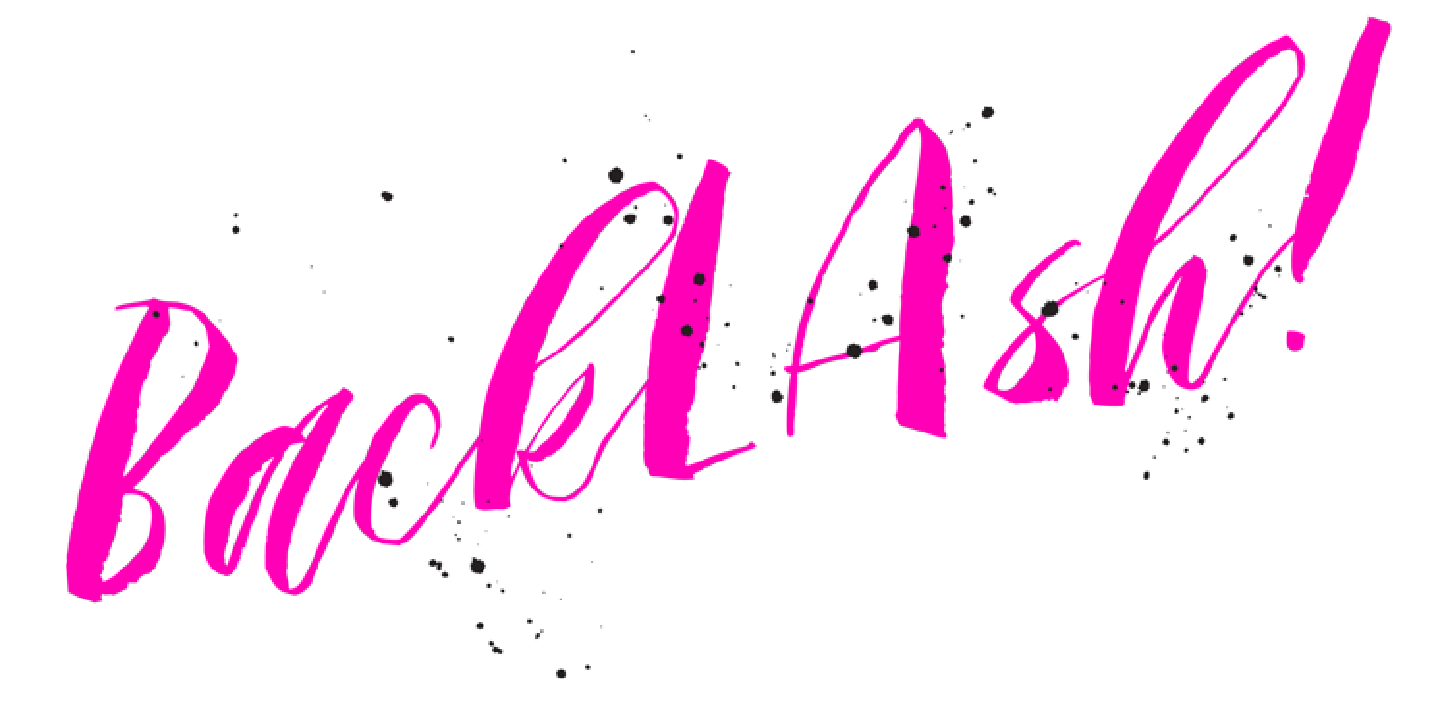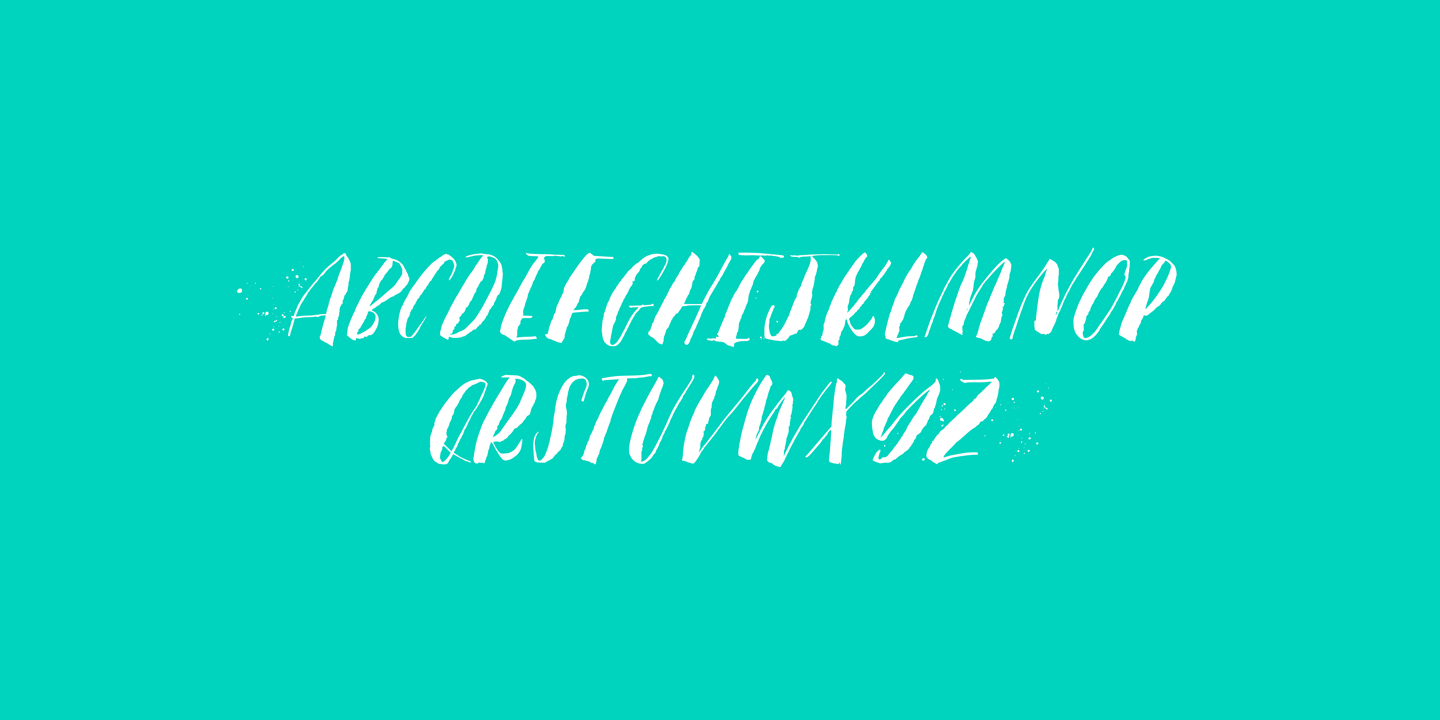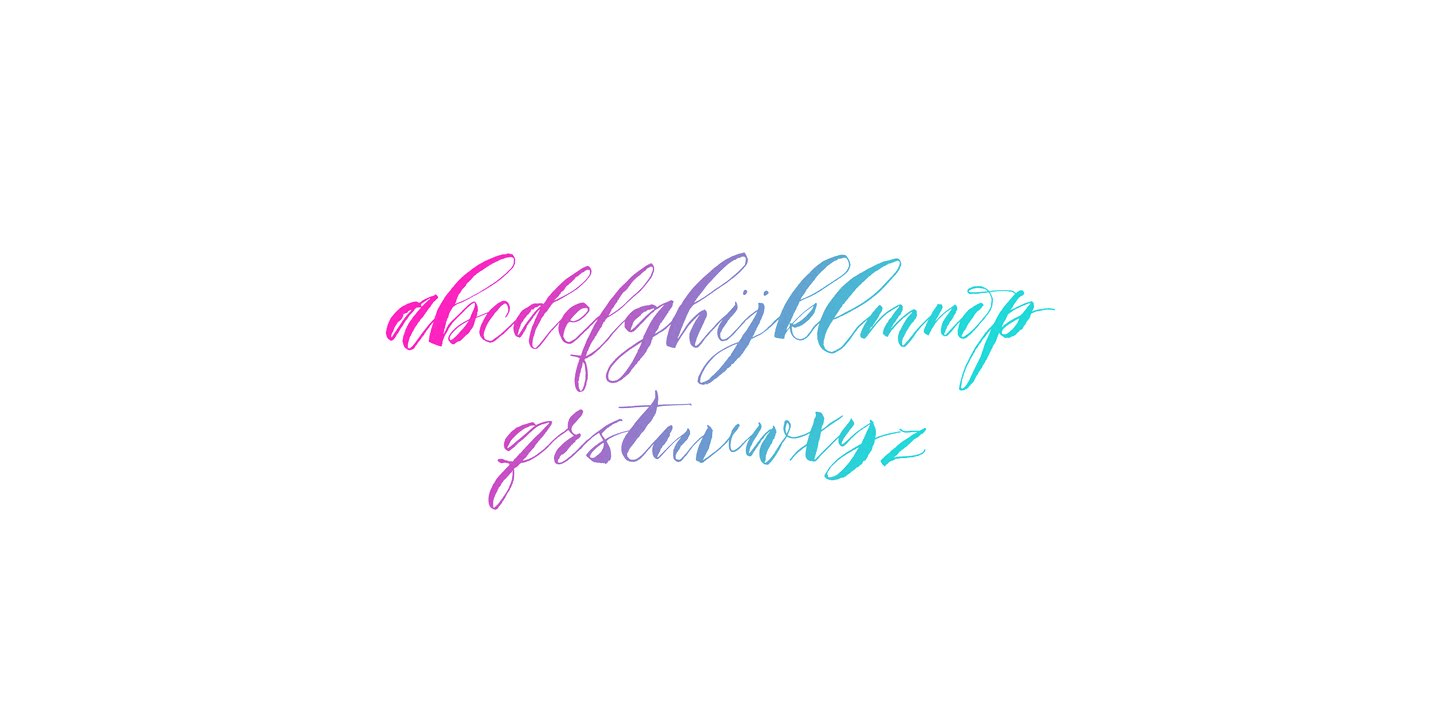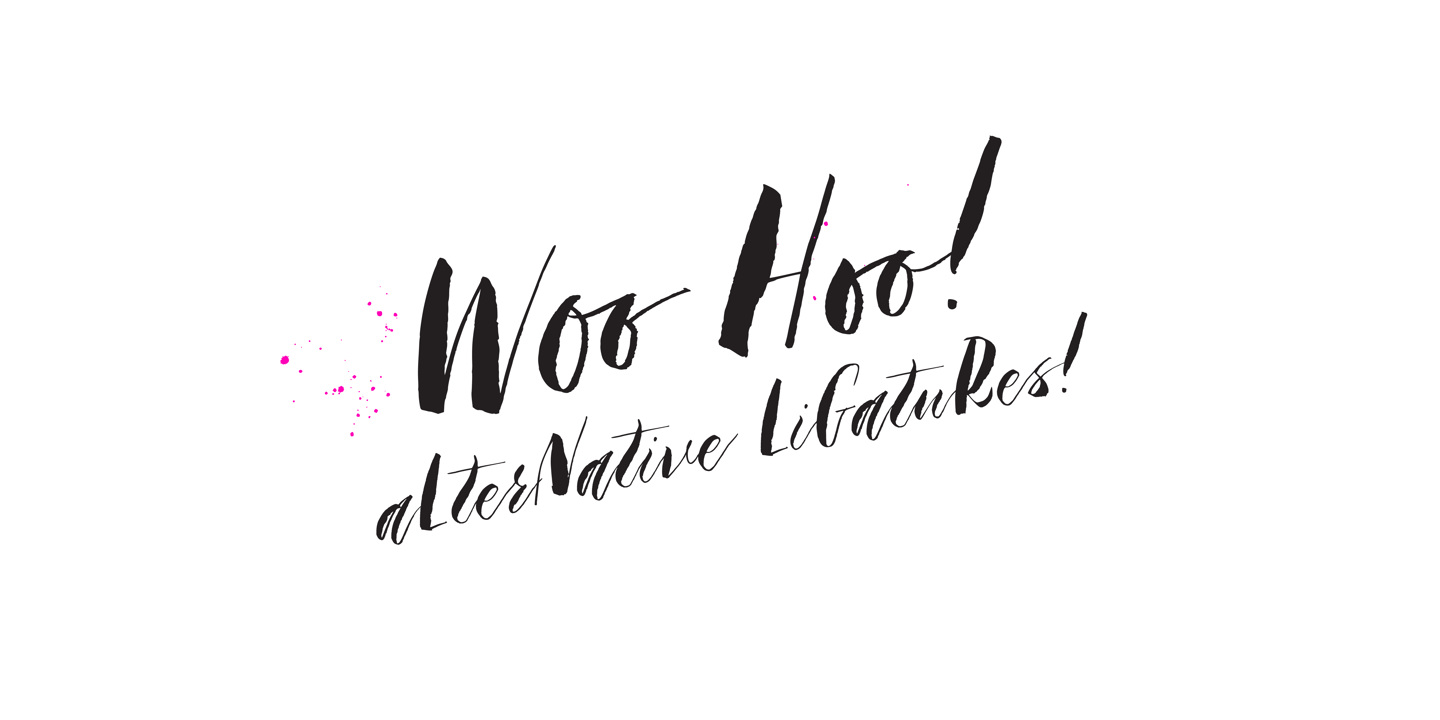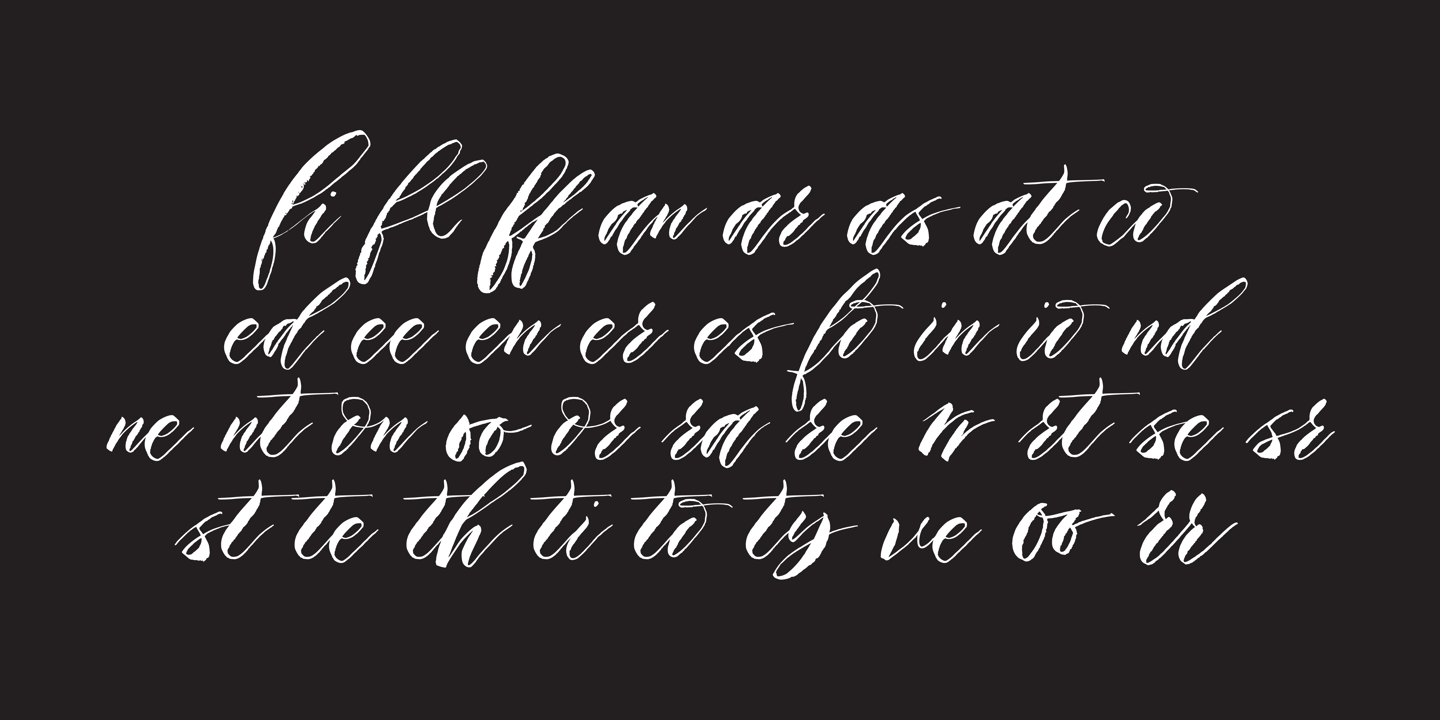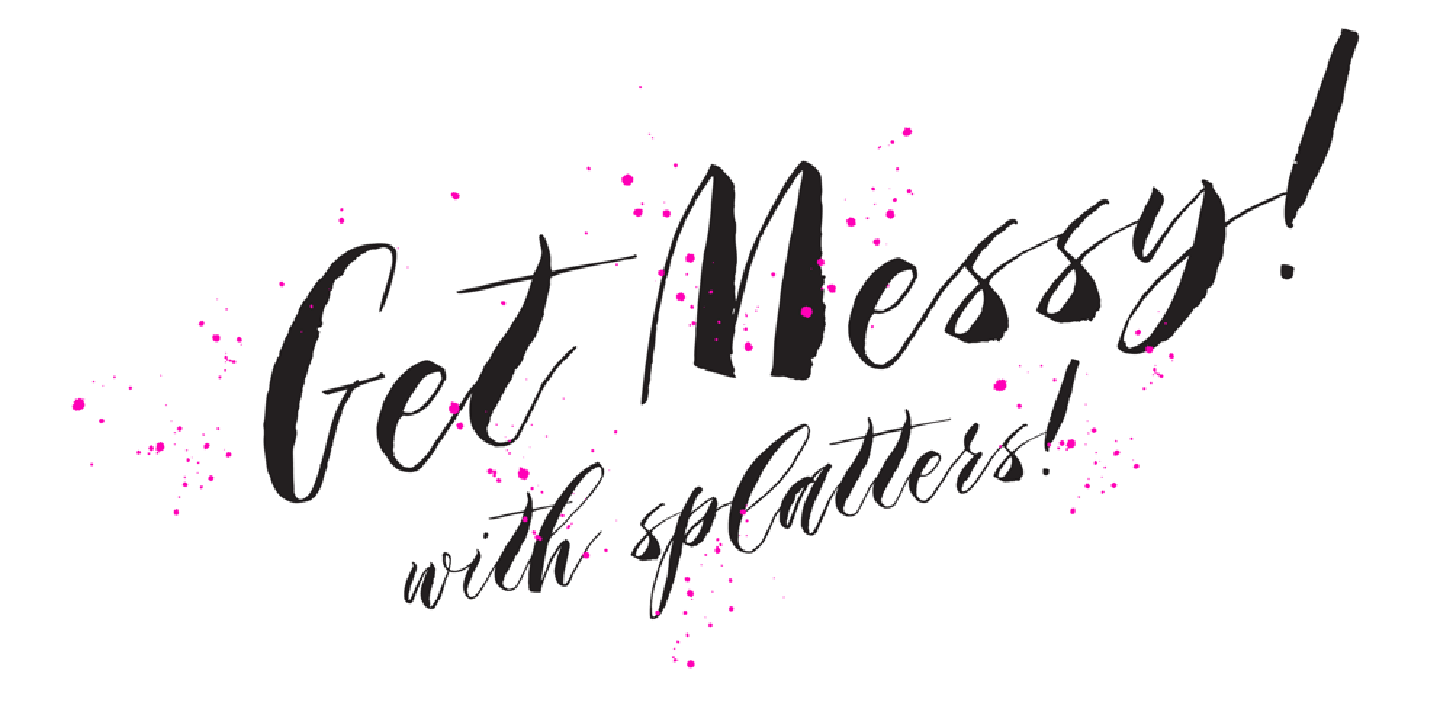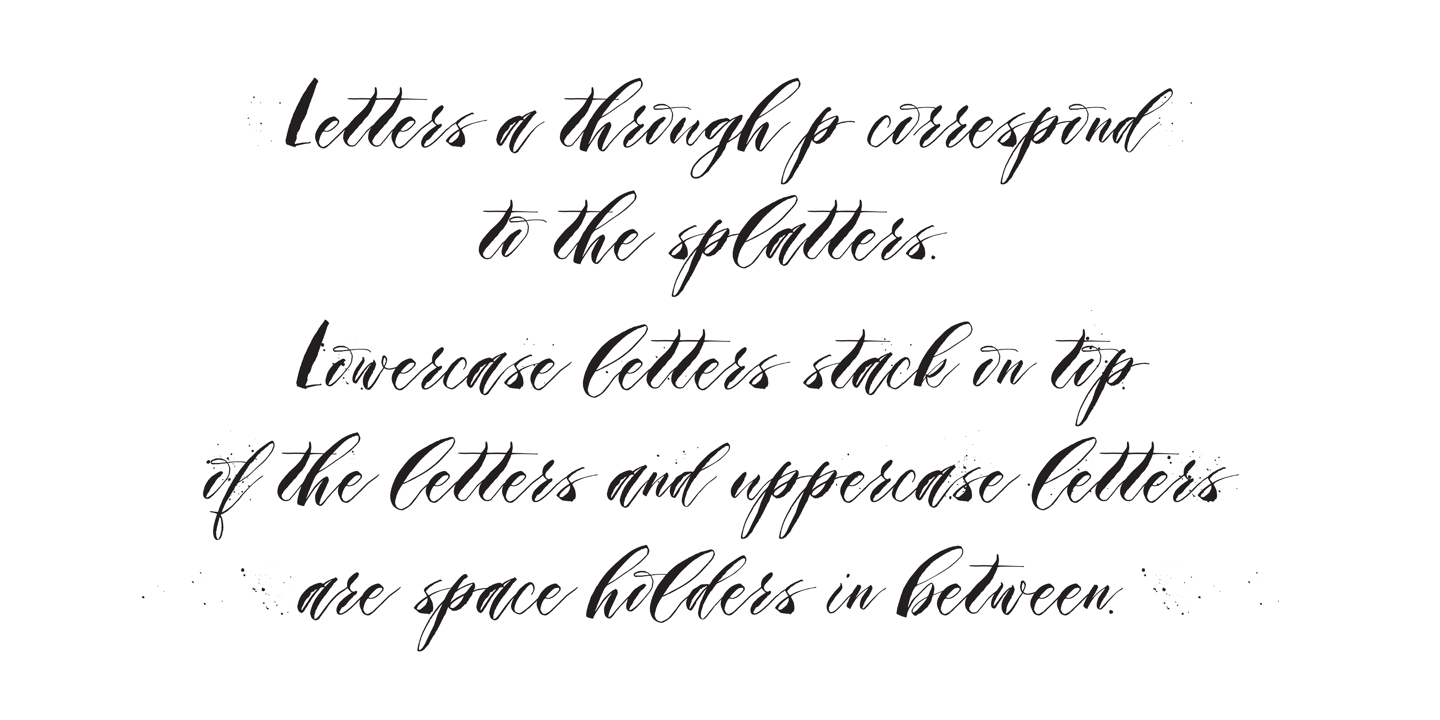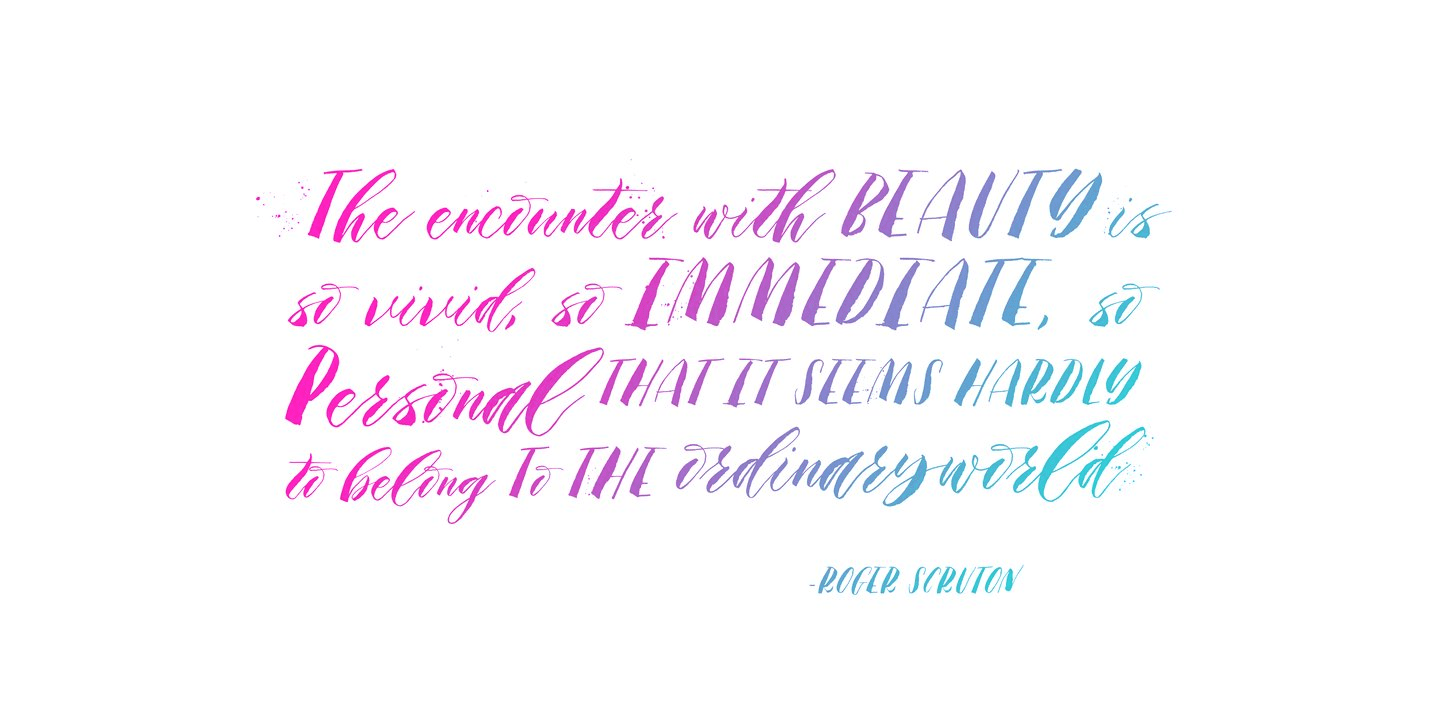
Backlash
Font Family by Great Lakes Lettering
A hand painted script style font that adds instant cool factor to any project. This font strives to bring a real hand-illustrated touch to designs as the variation in line weights, textures, and letter forms creates a one of a kind final piece. These variations also create an energetic movement throughout words, and paired with a variety of ink splatters, you're ready to backlash.
Backlash Spatters
Backlash Regular